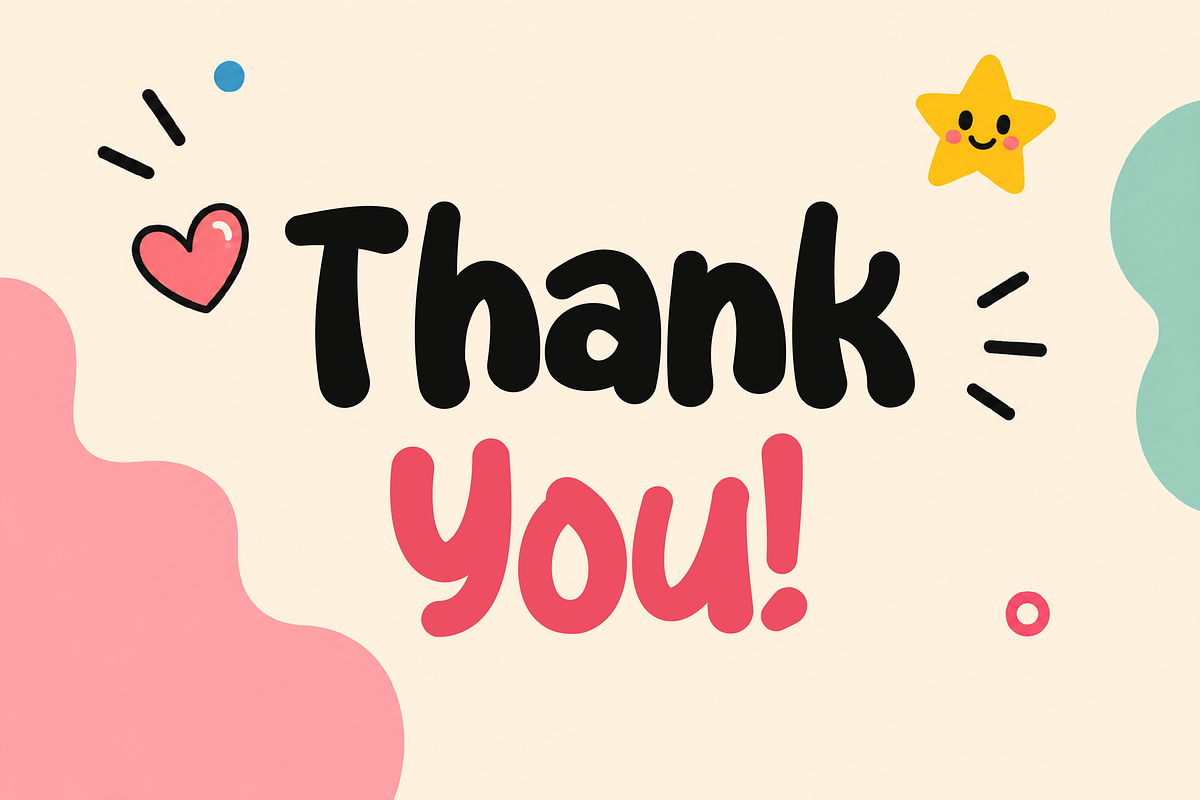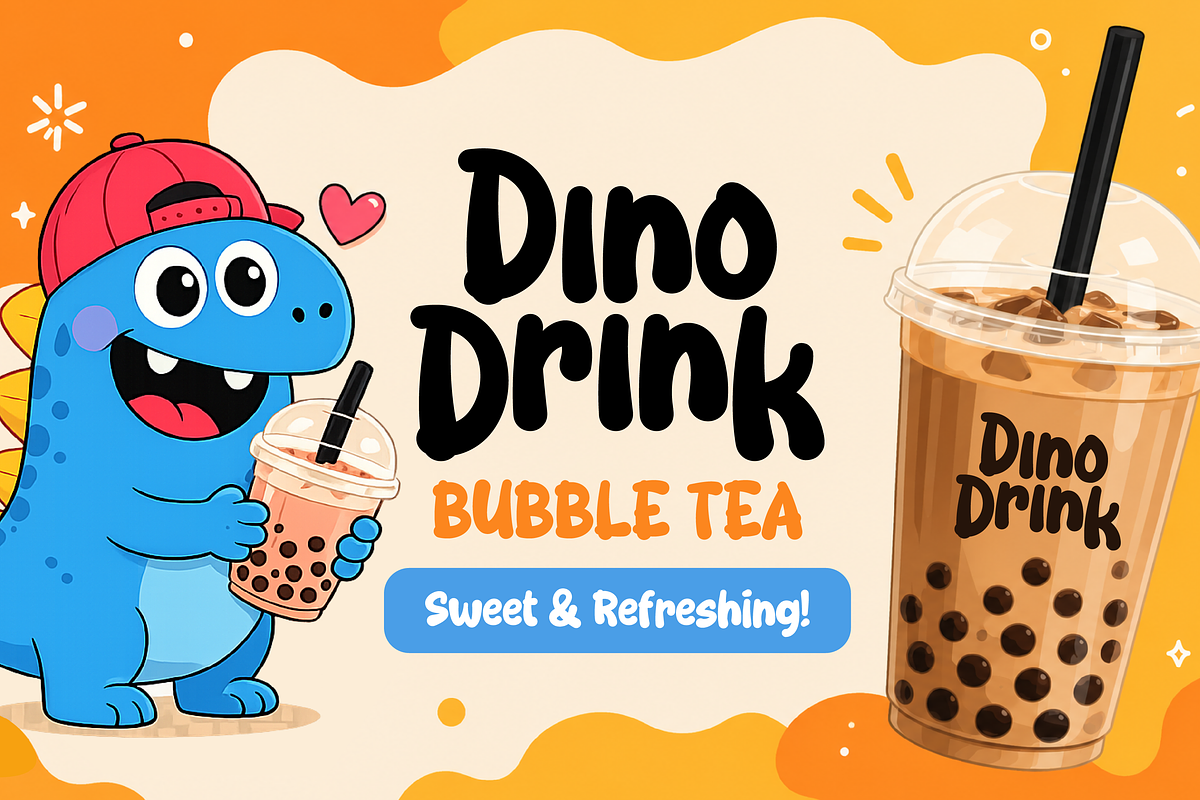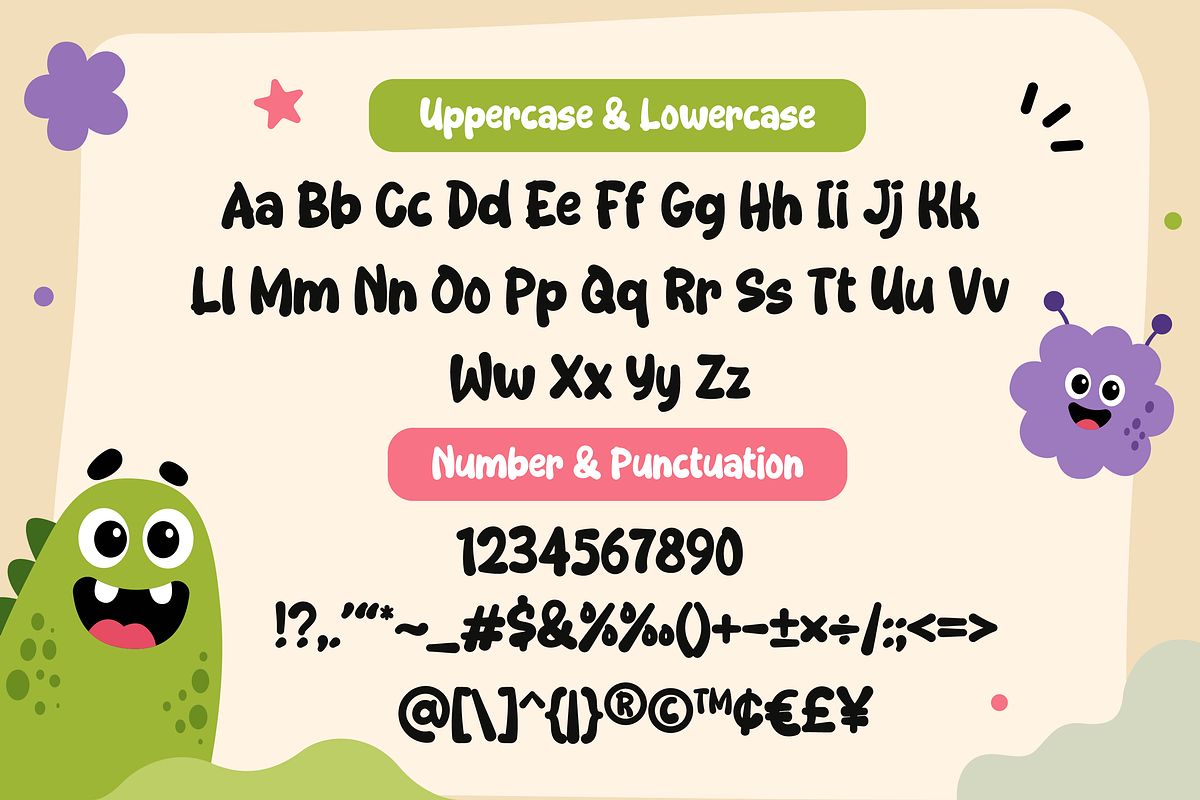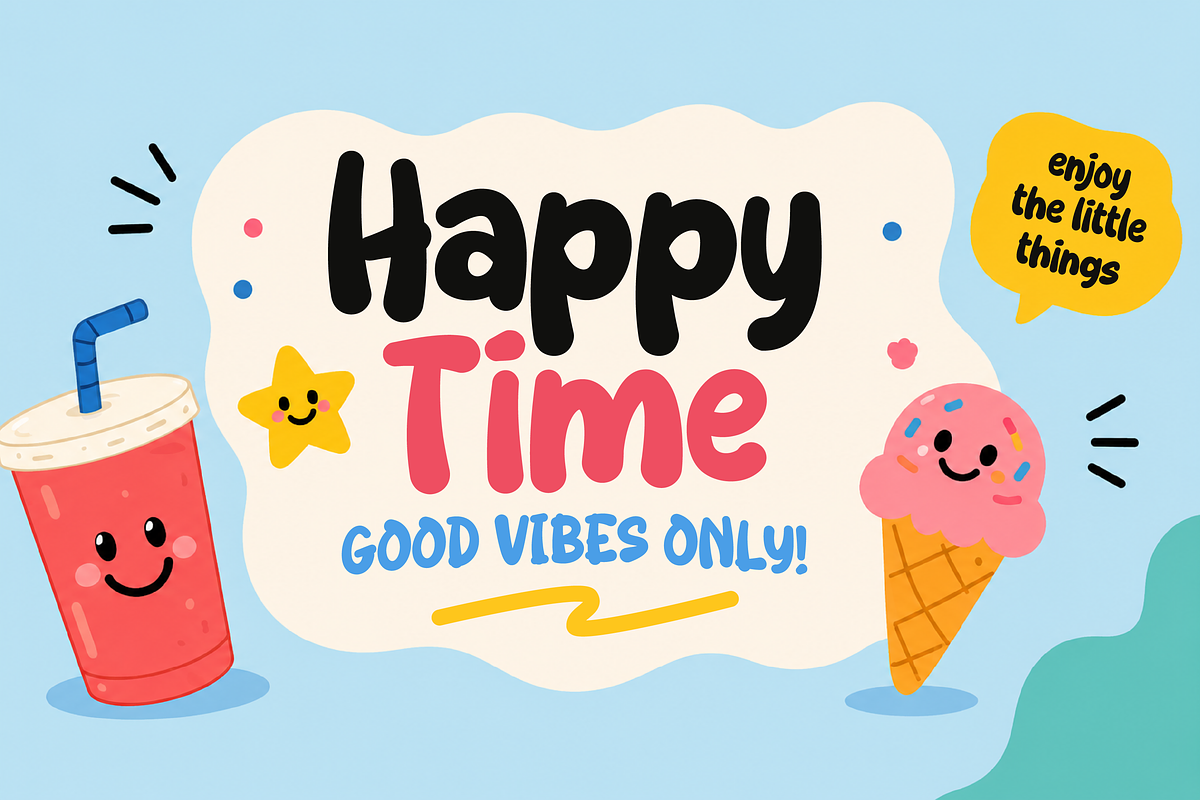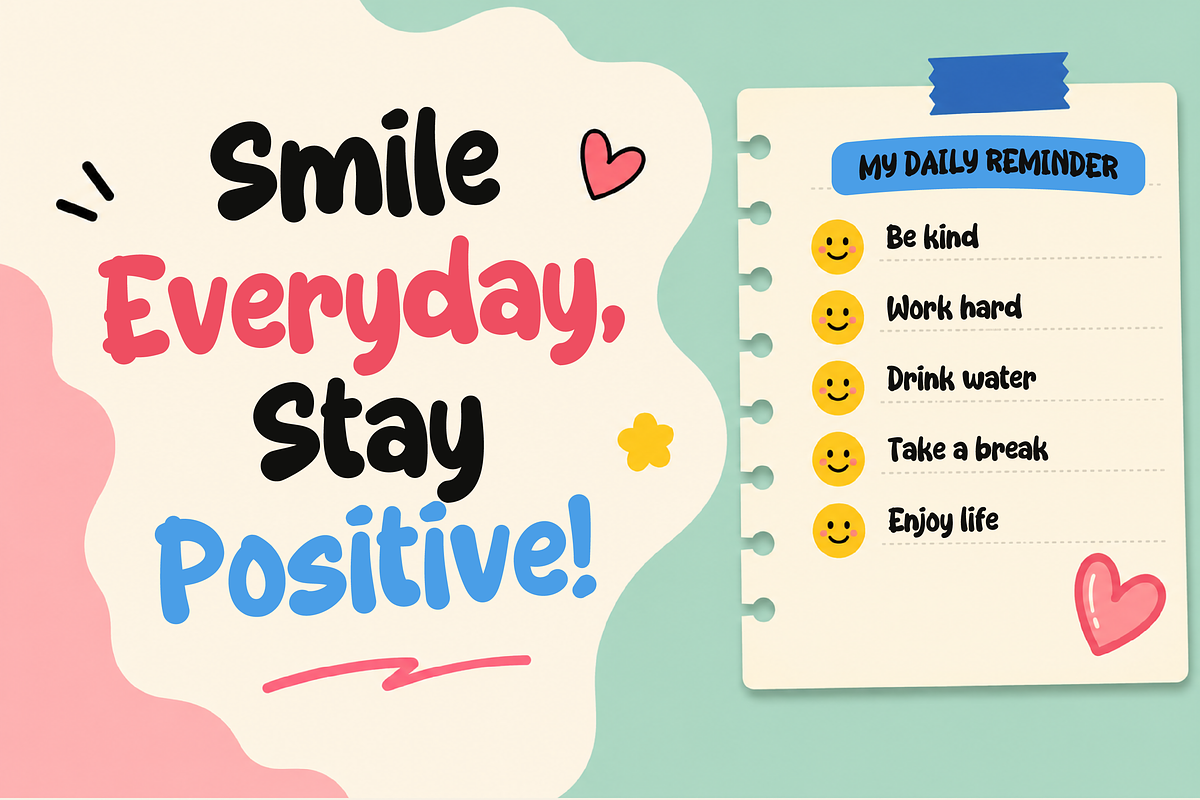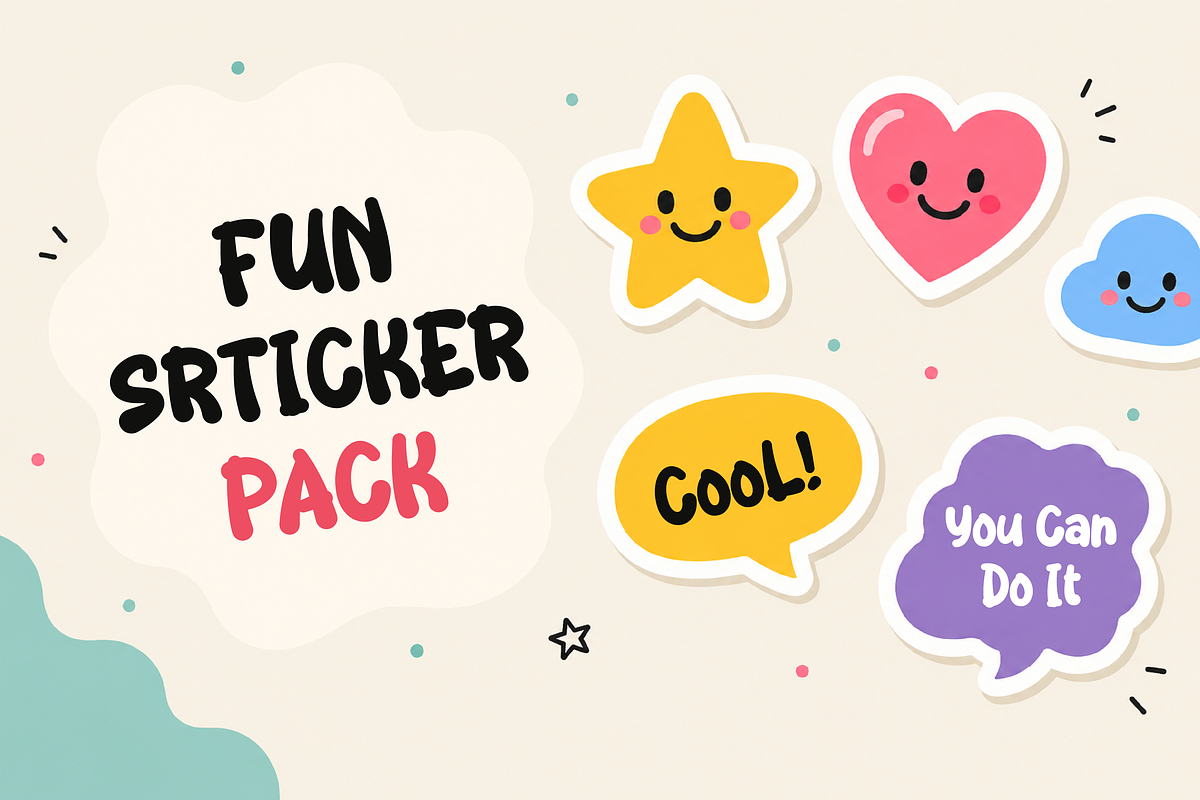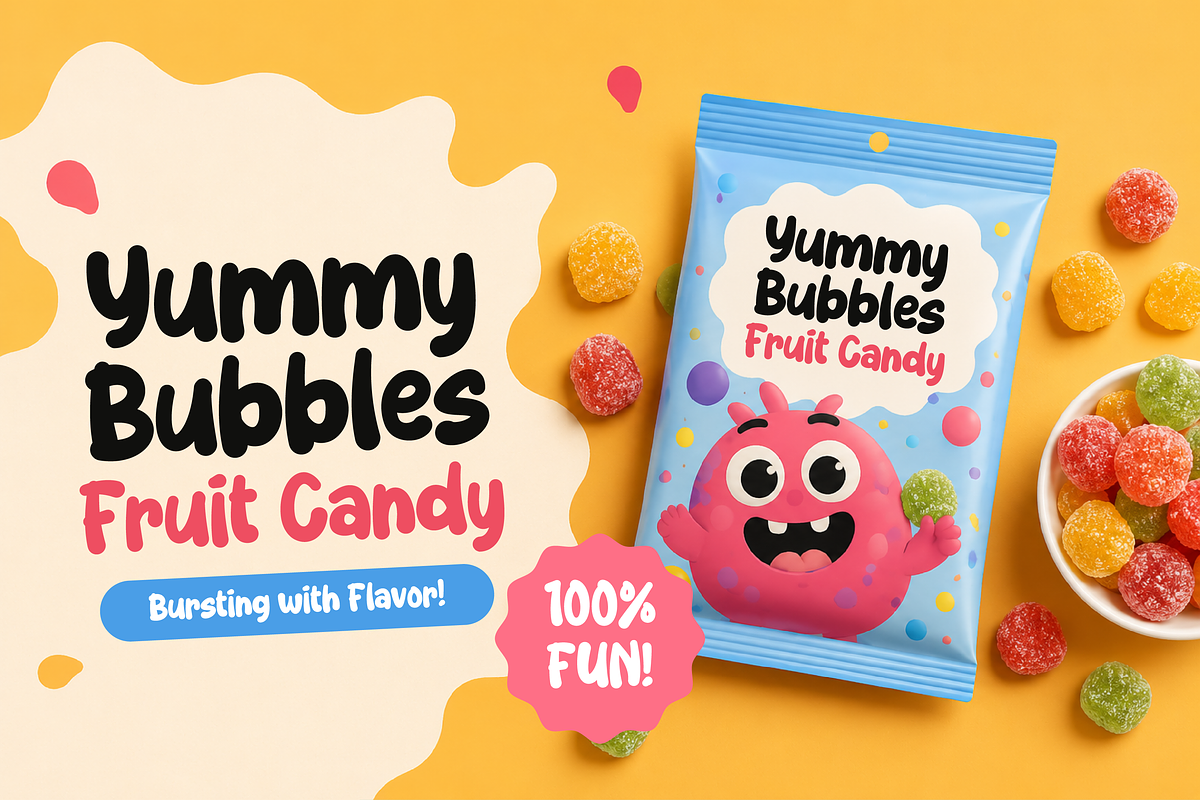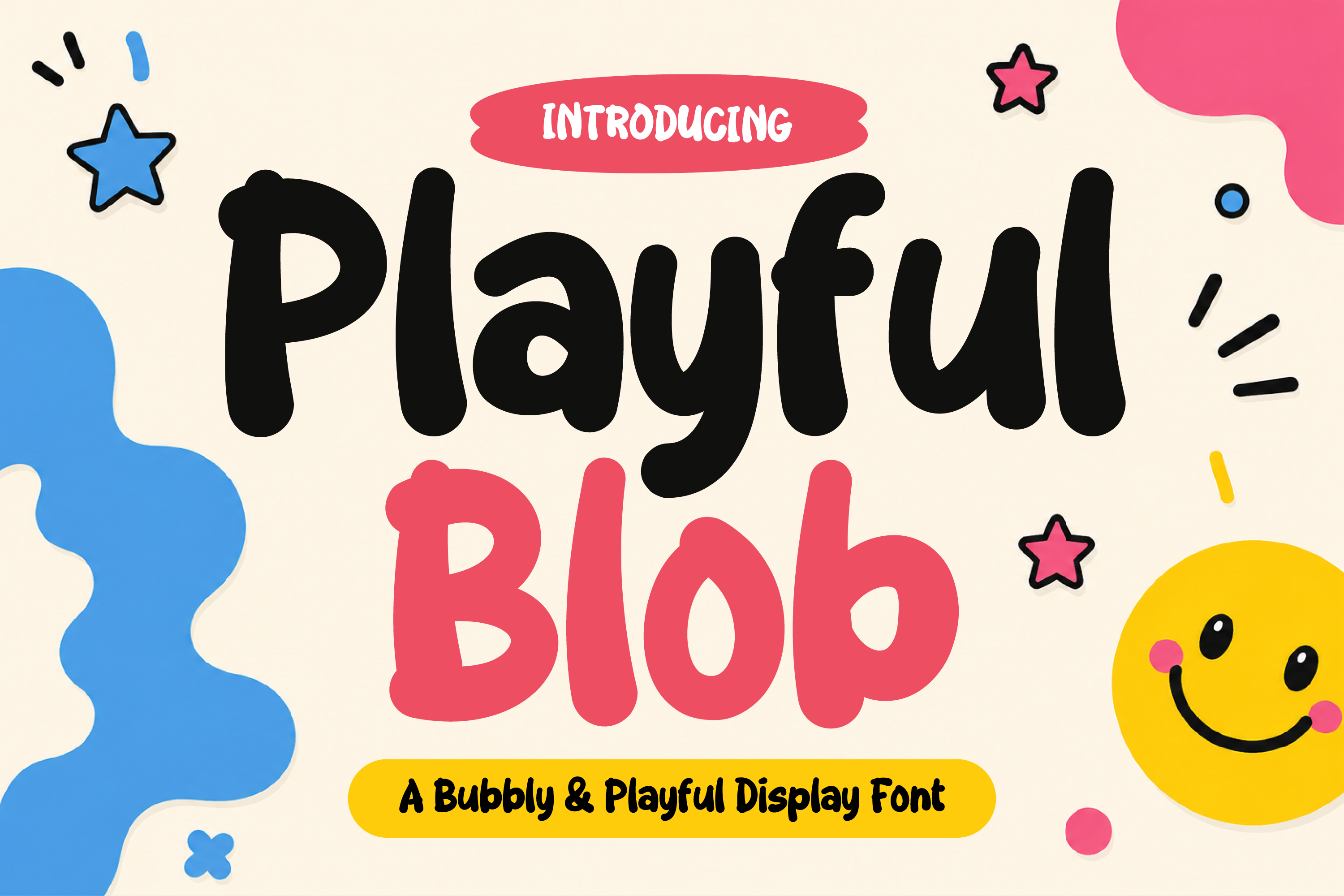
Playful Blob - A Bubbly Display Font
Playful Blob is a bubbly and playful display font with a cheerful, energetic, and expressive personality. Its soft rounded shapes and fun handwritten style create a lively appearance that instantly brings happiness and creativity into any design.
Designed with bold curves and a friendly character, Playful Blob is perfect for kids projects, playful branding, packaging, social media graphics, posters, stickers, t-shirt designs, greeting cards, and creative layouts that need a cute and eye-catching touch.
This font combines readability with charming handmade vibes, making your typography feel fun, modern, and full of positive energy.